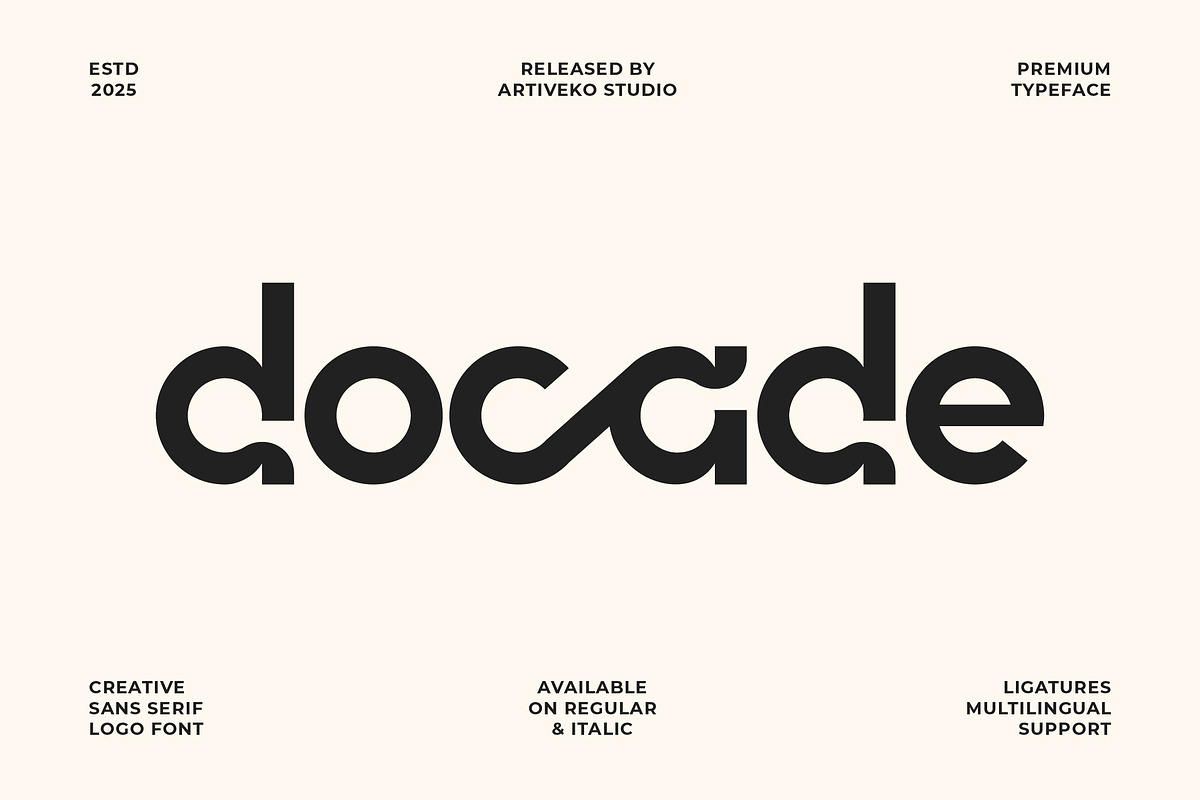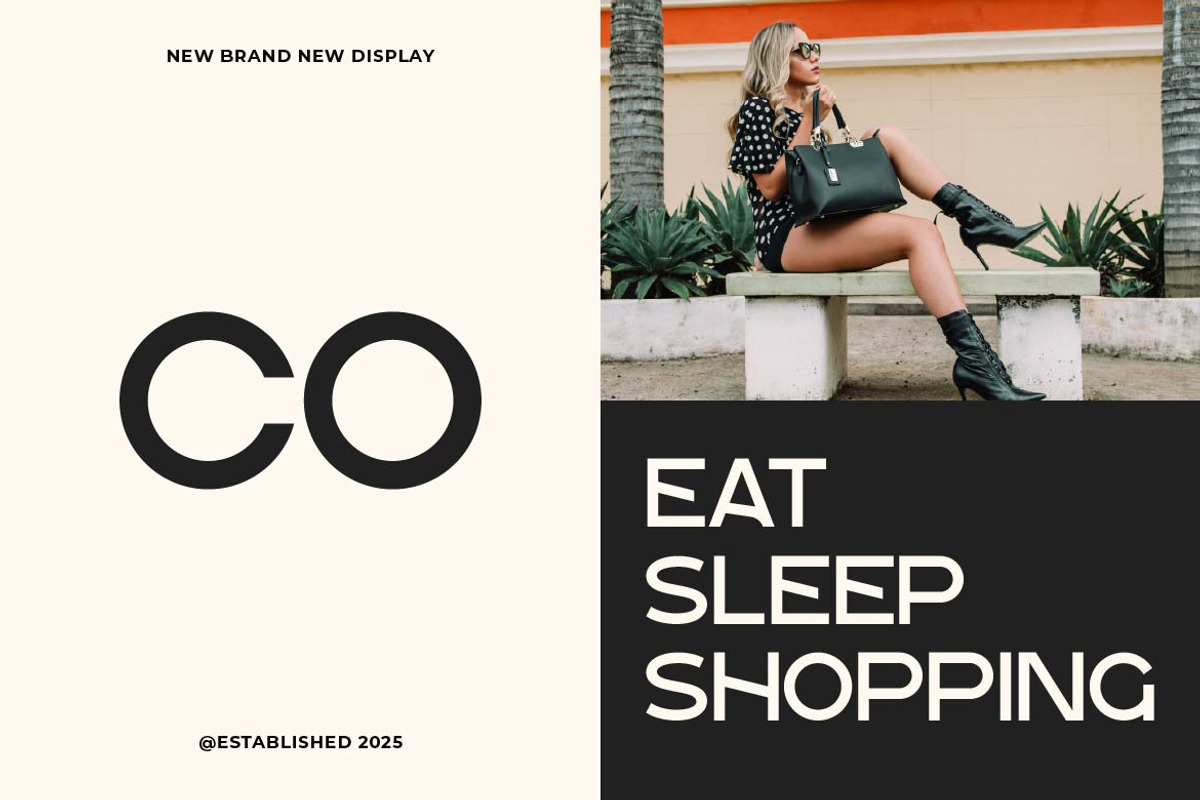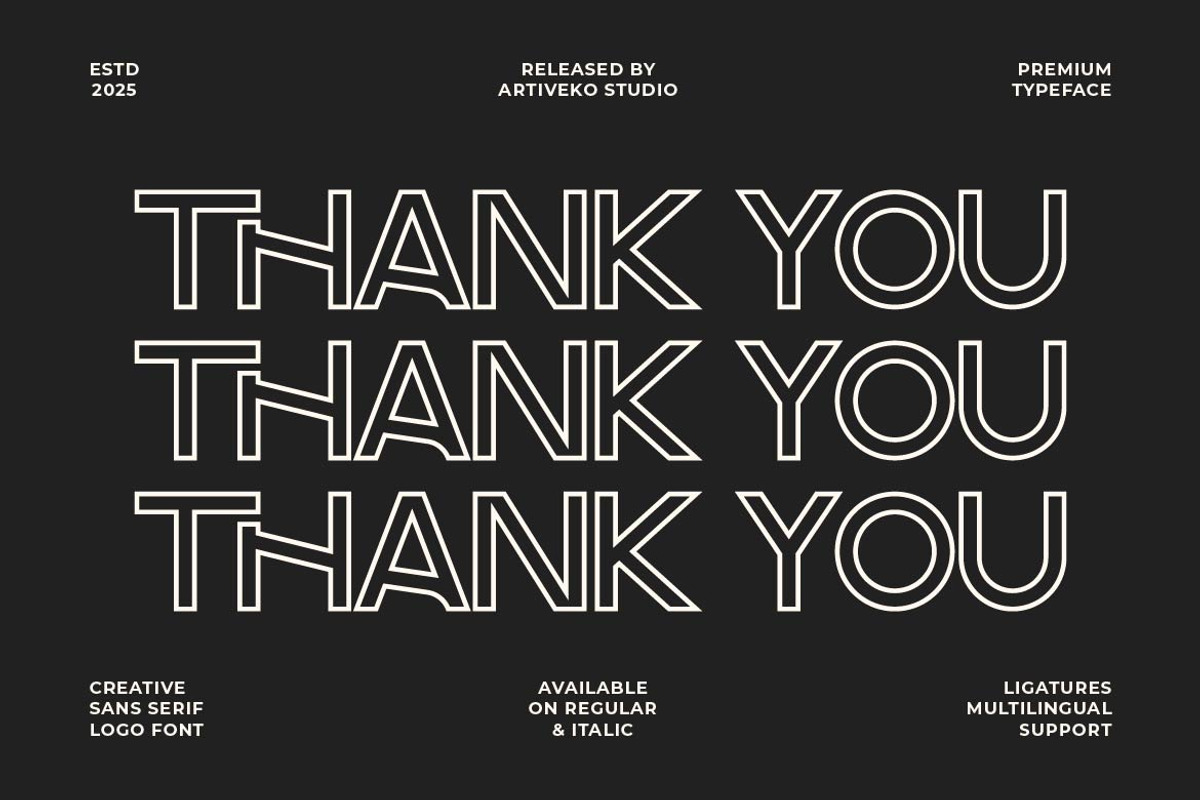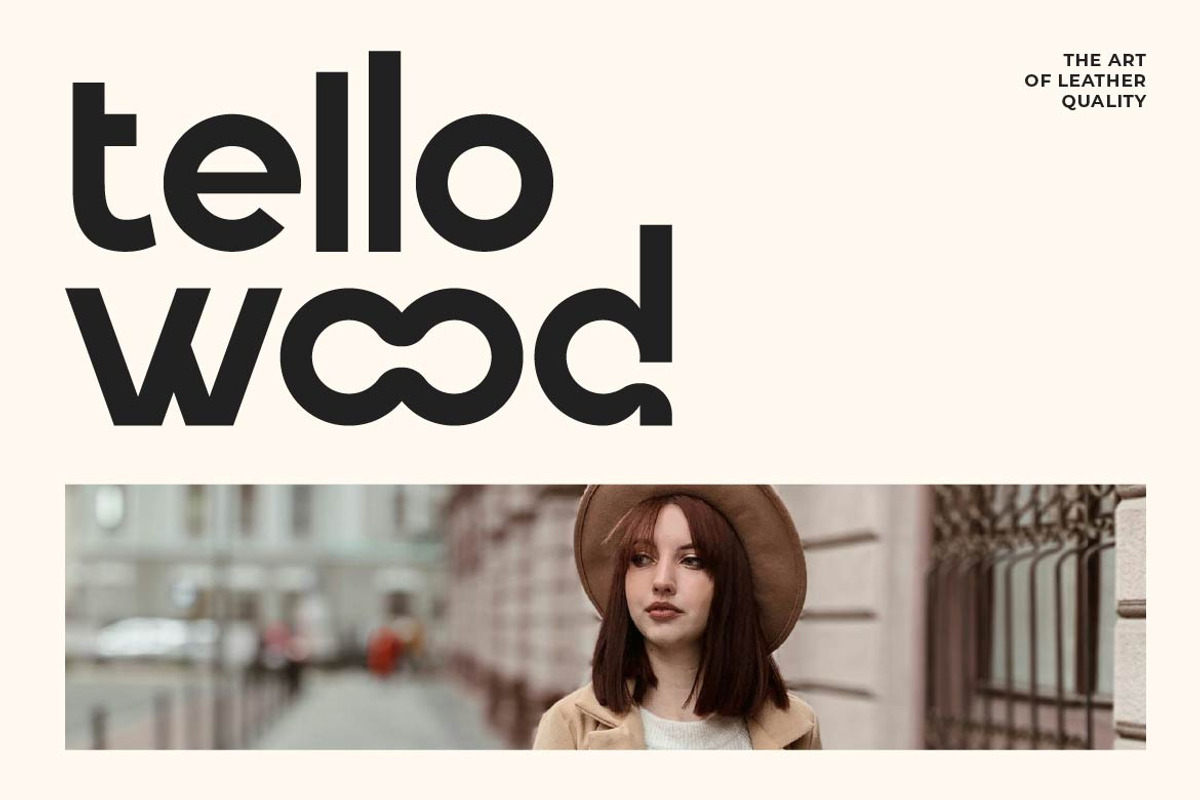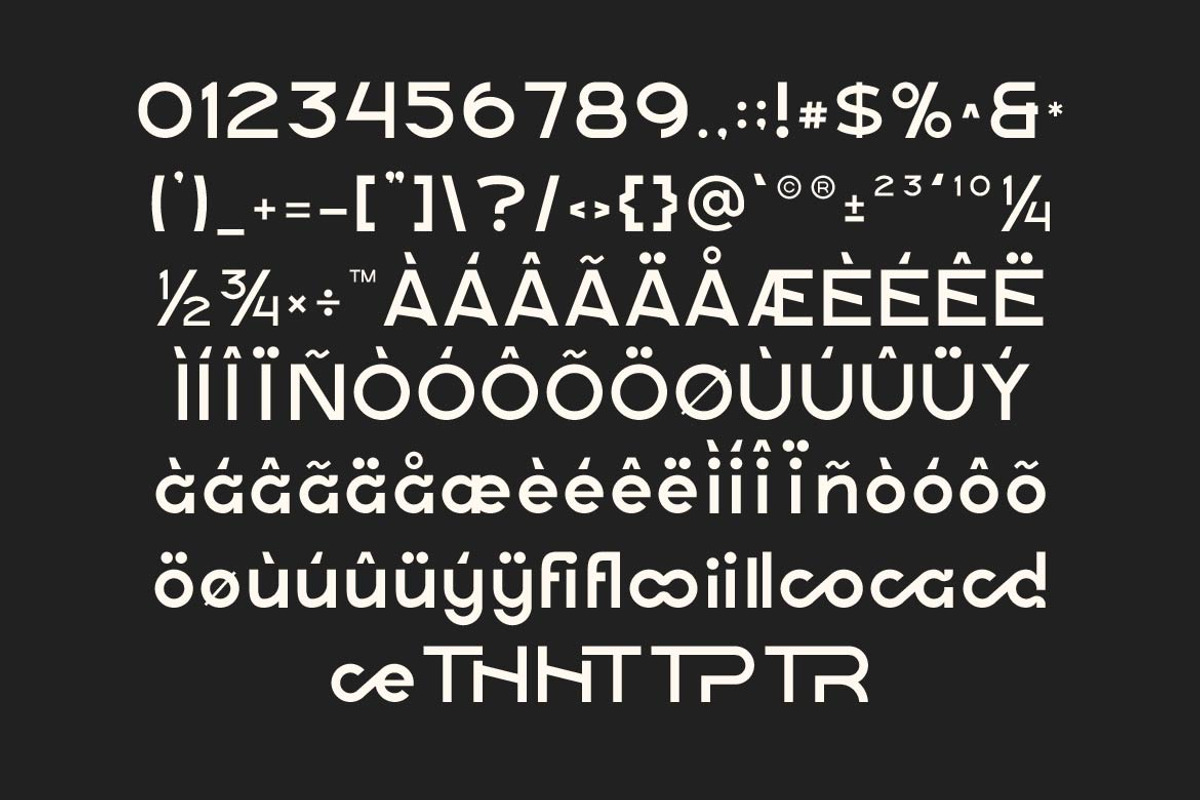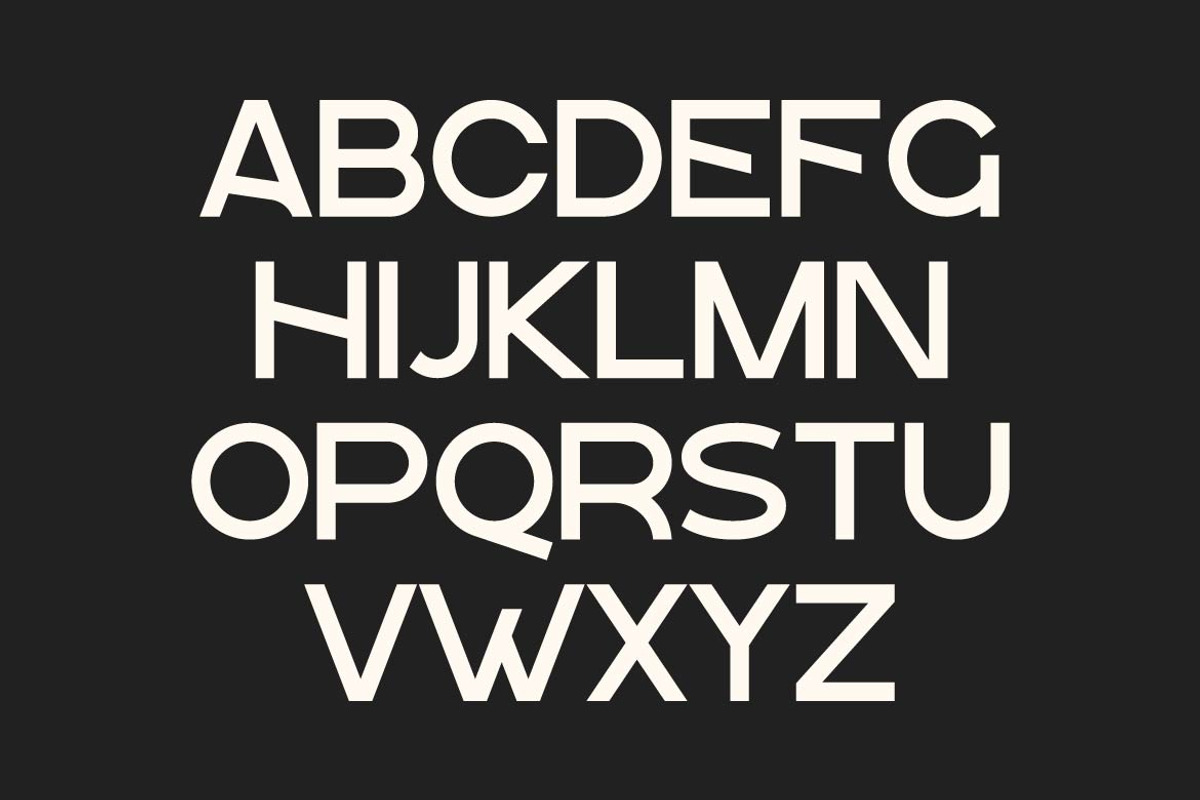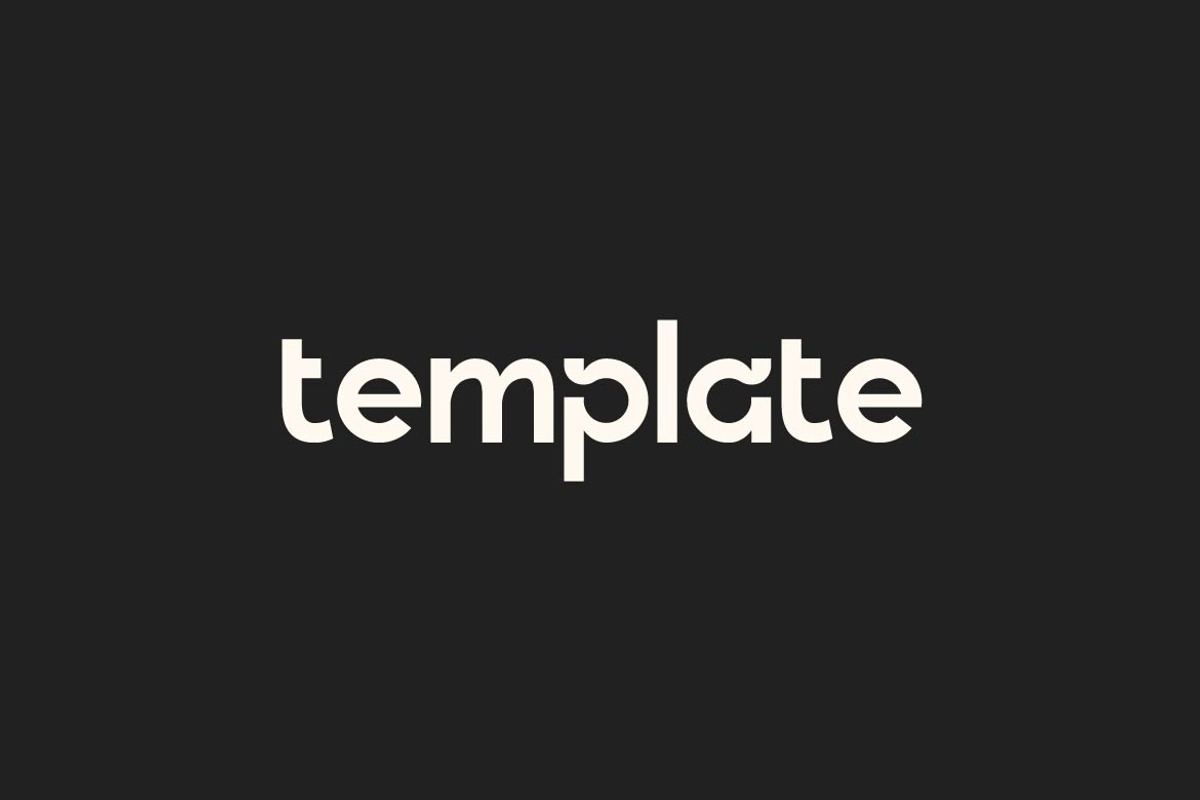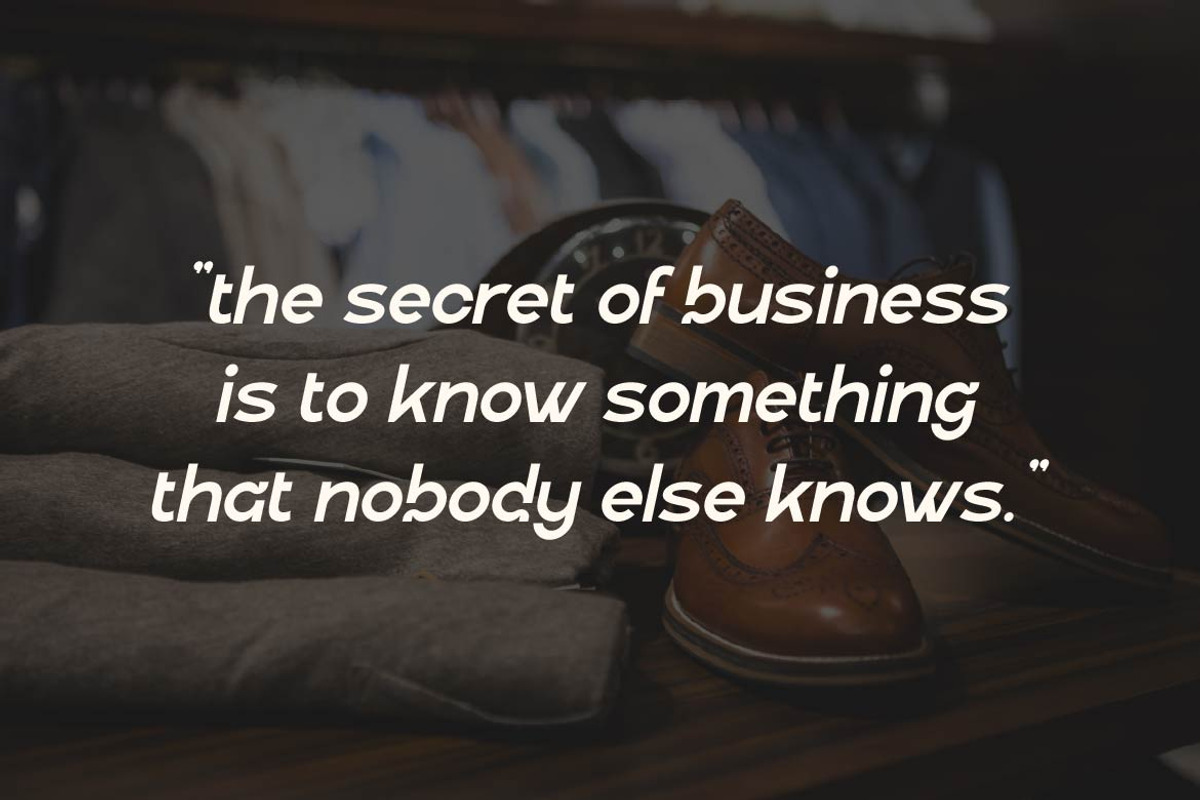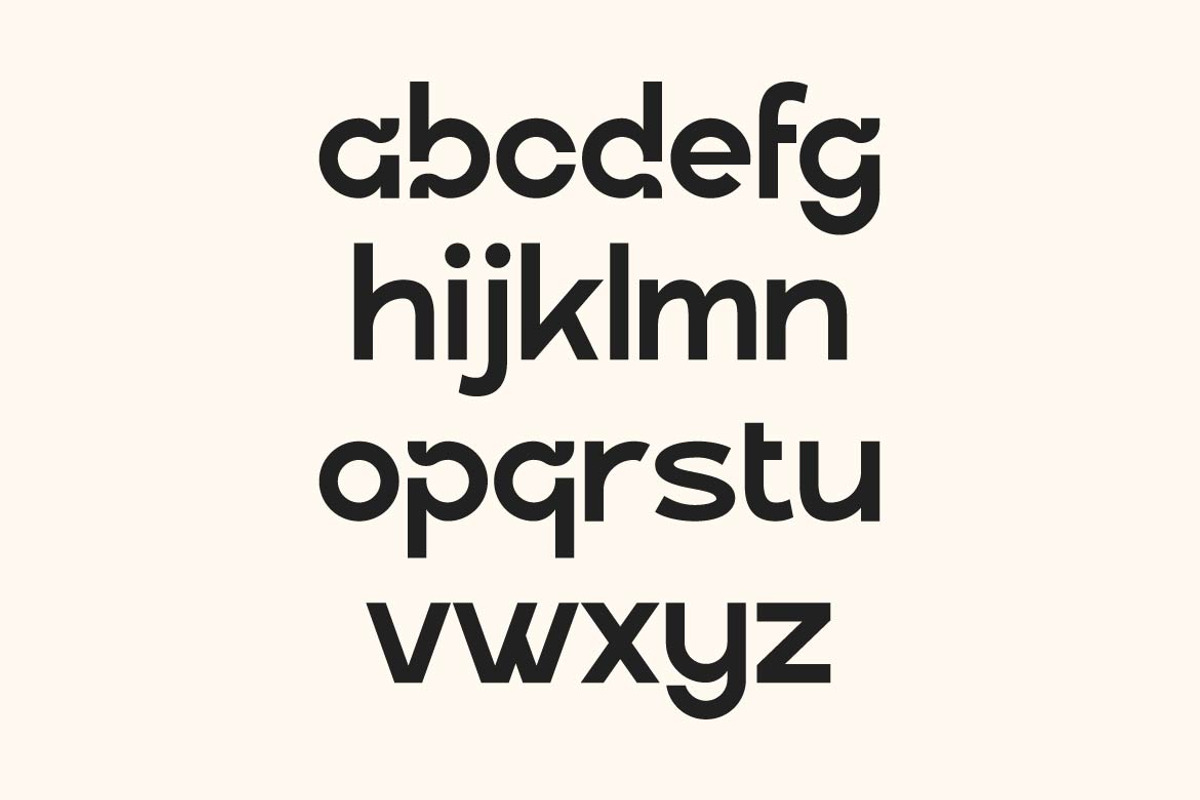
Docade Logo Font
Docade is a modern creative sans serif font designed to stand out with subtle quirks and clean precision. Featuring sleek lines, unexpected details, and a balanced geometric feel, Docade adds a fresh personality to any design. It’s perfect for branding, logos, posters, packaging, tech visuals, and editorial layouts that call for something stylish yet professional.